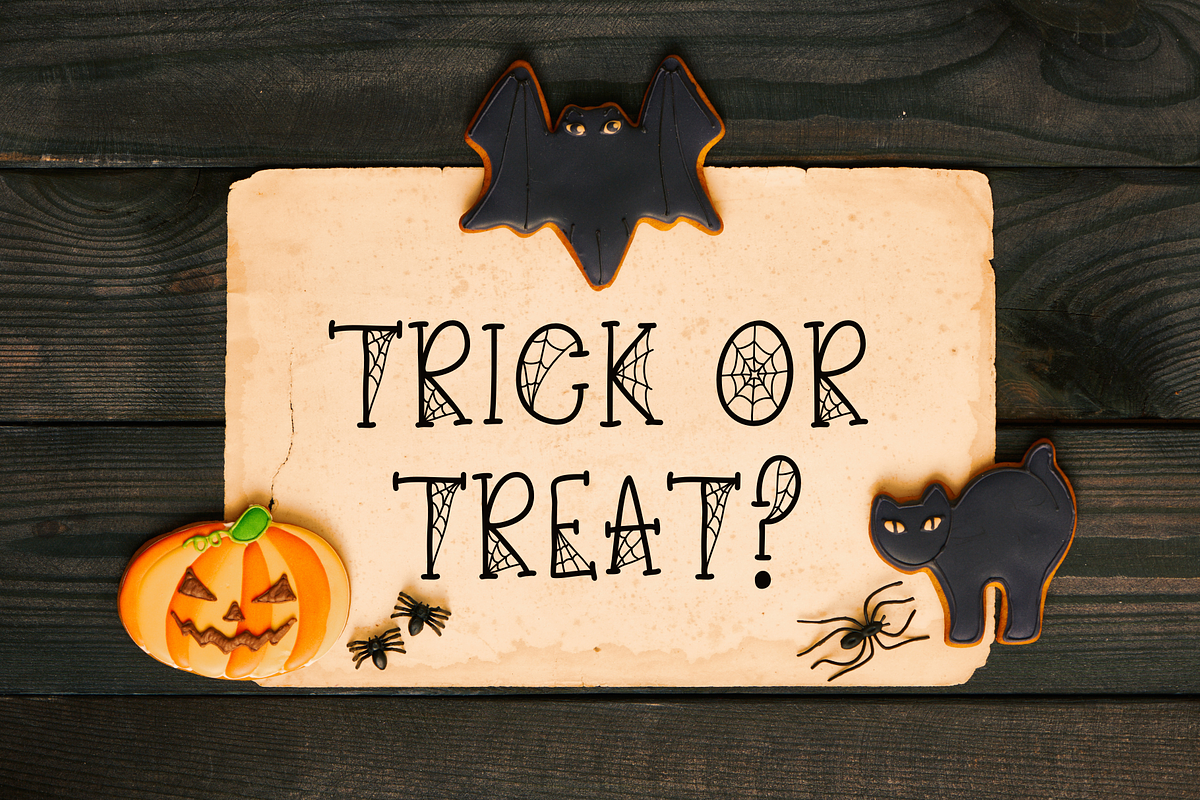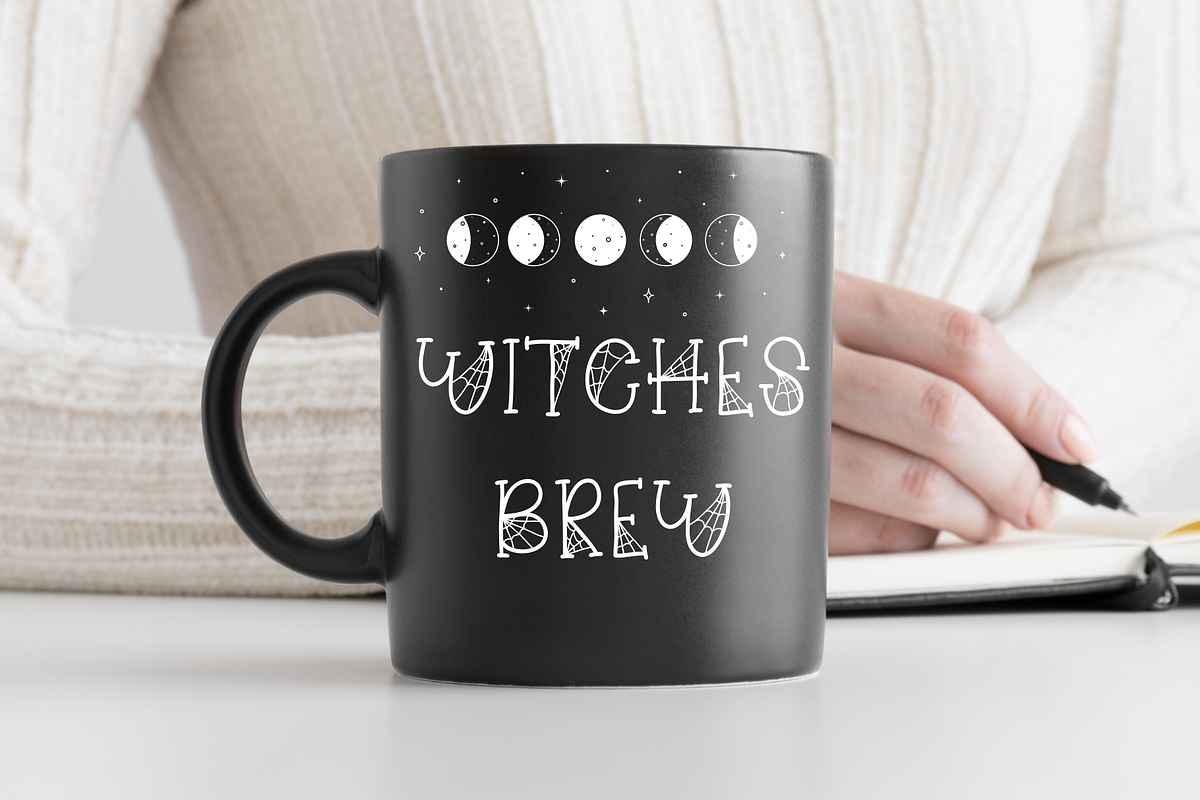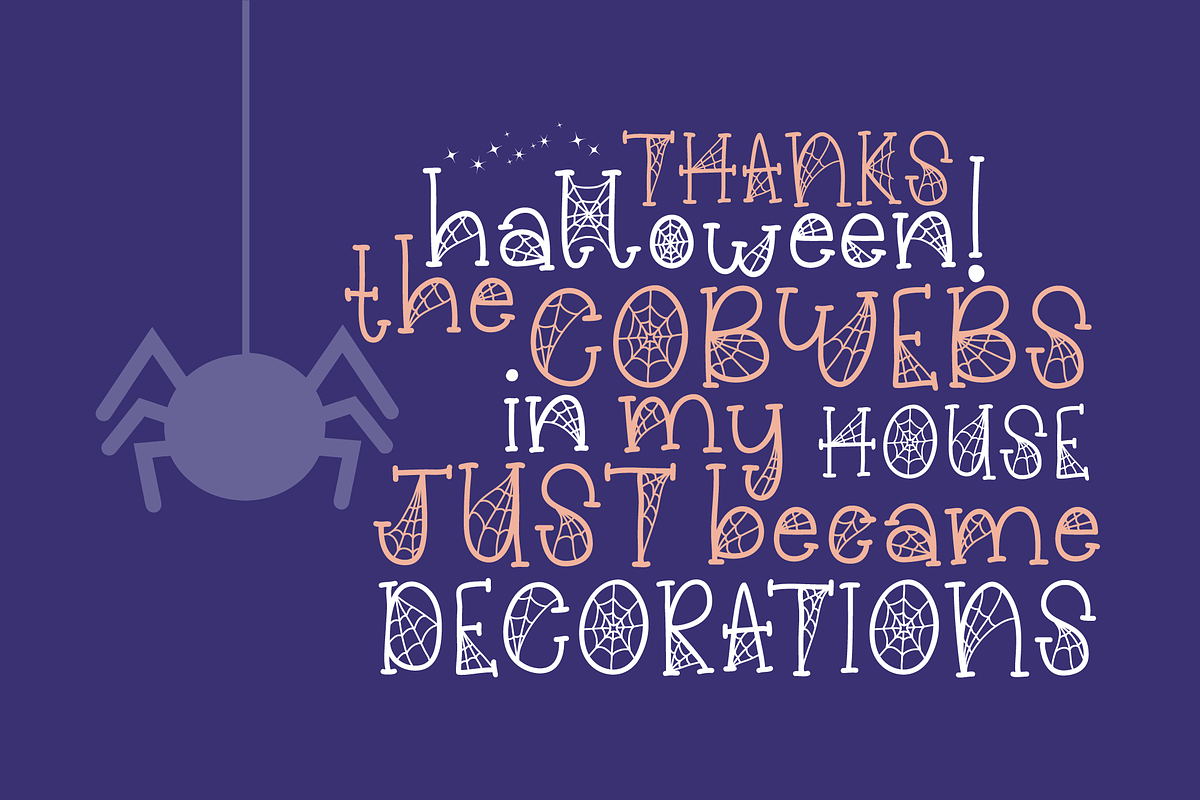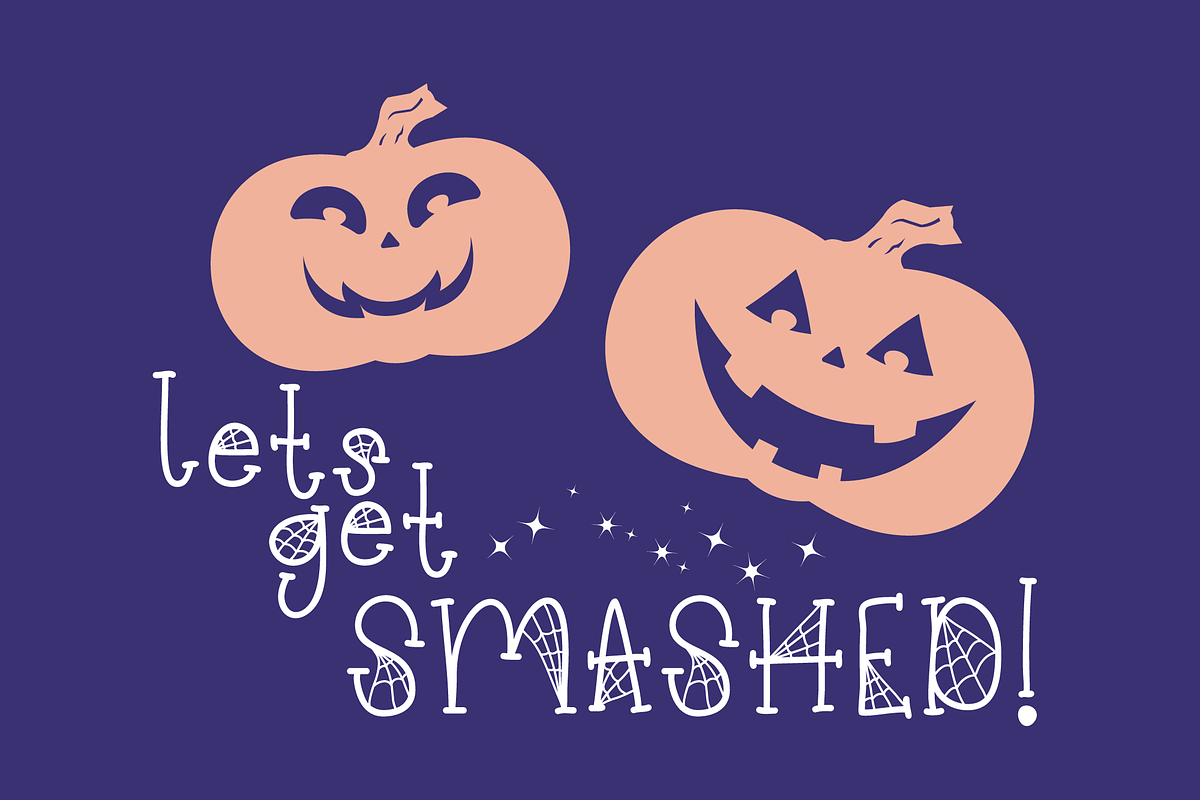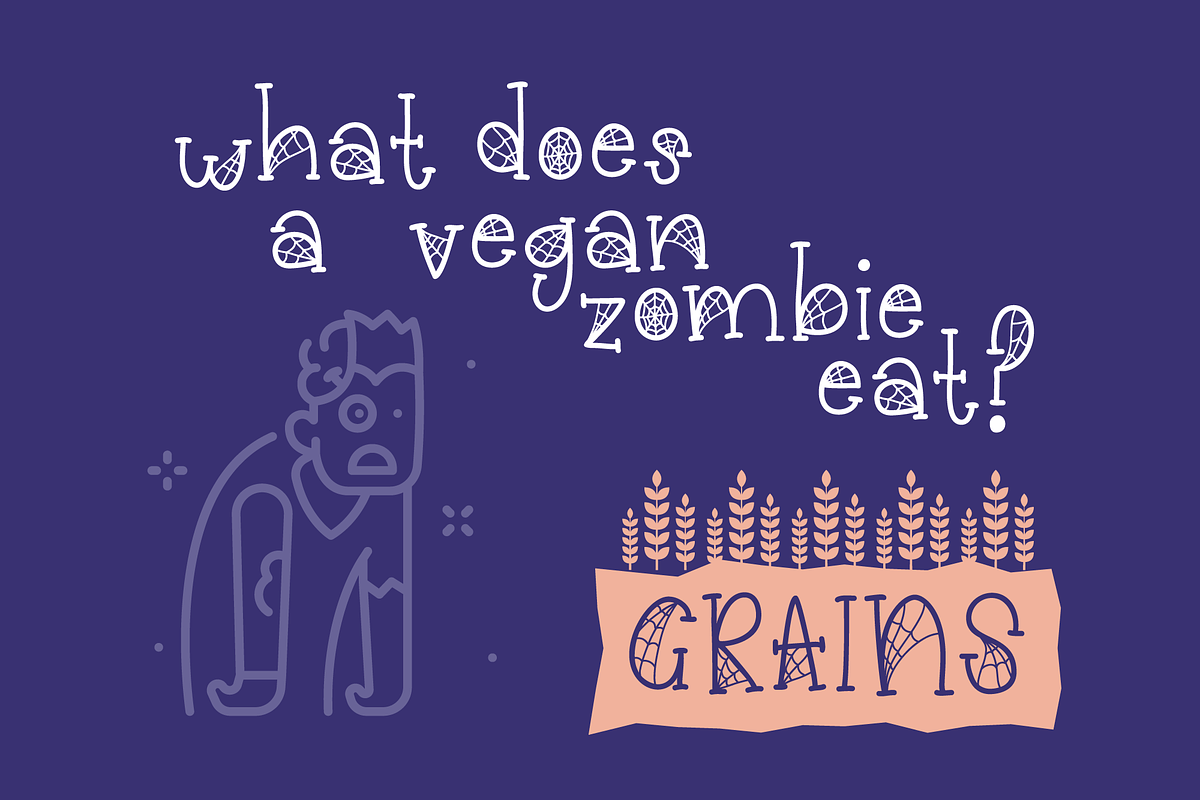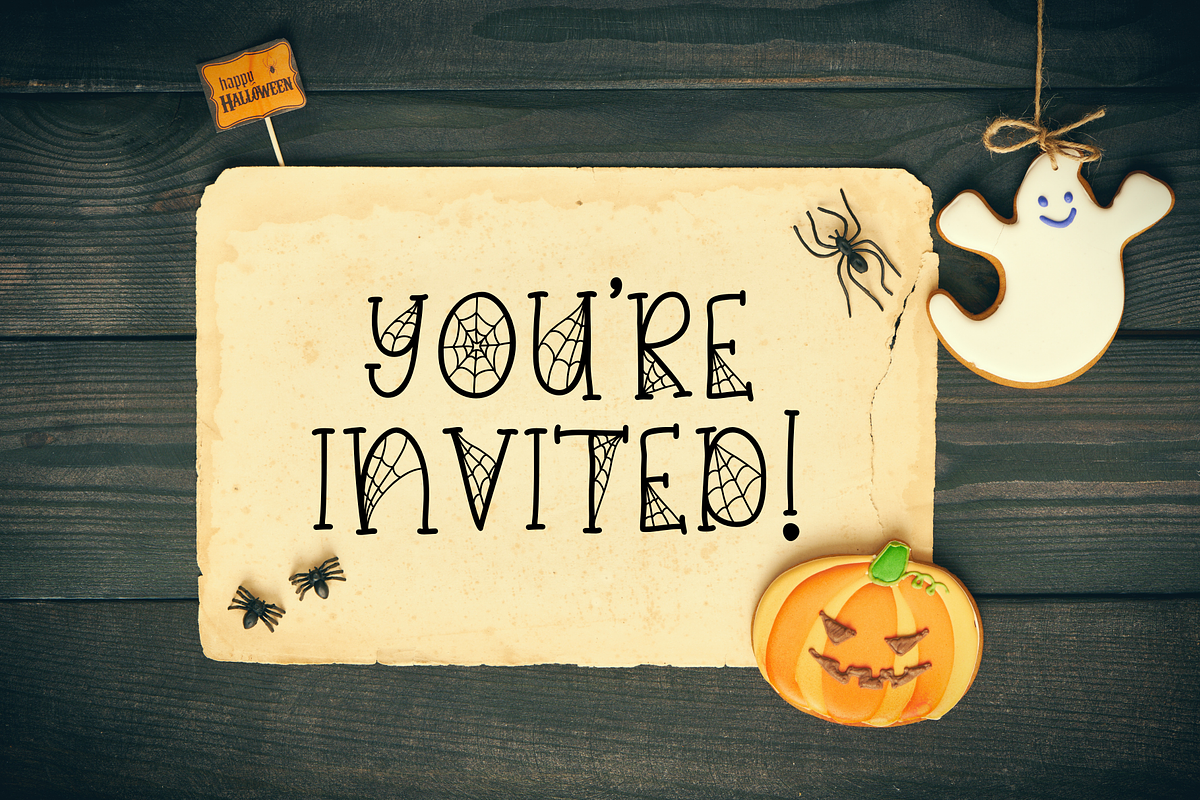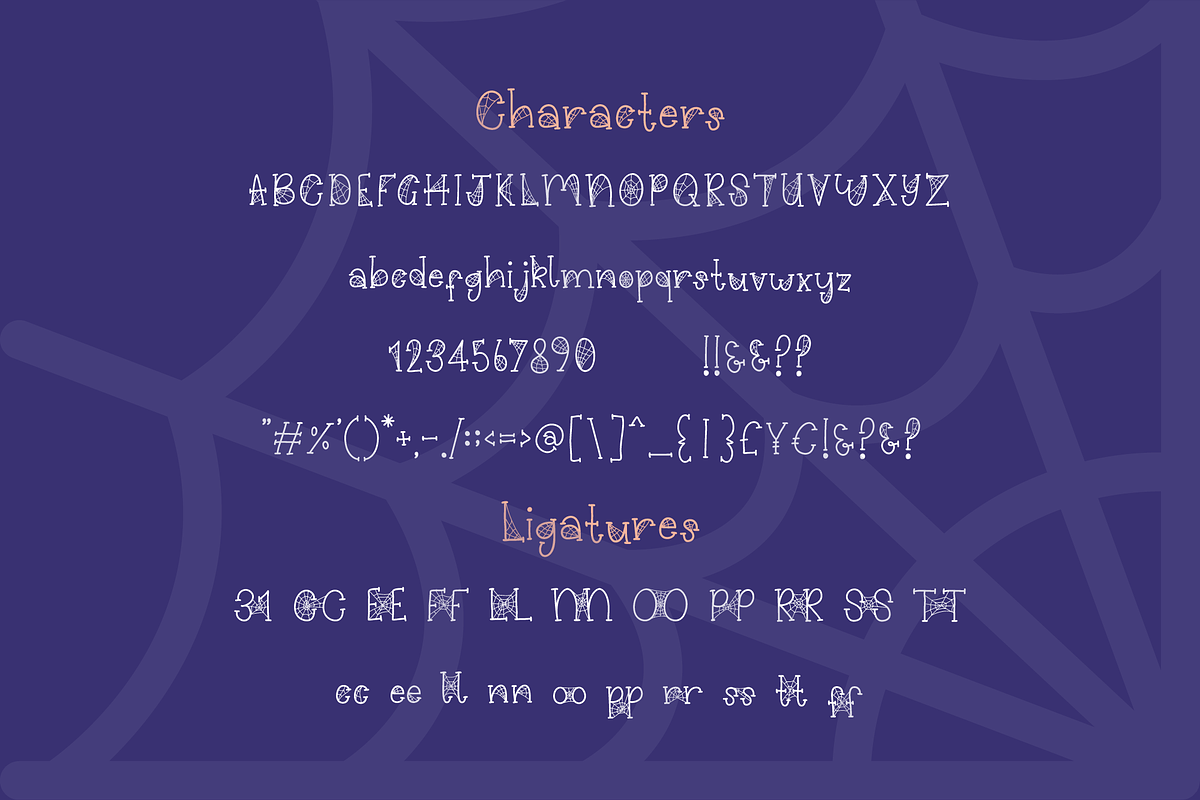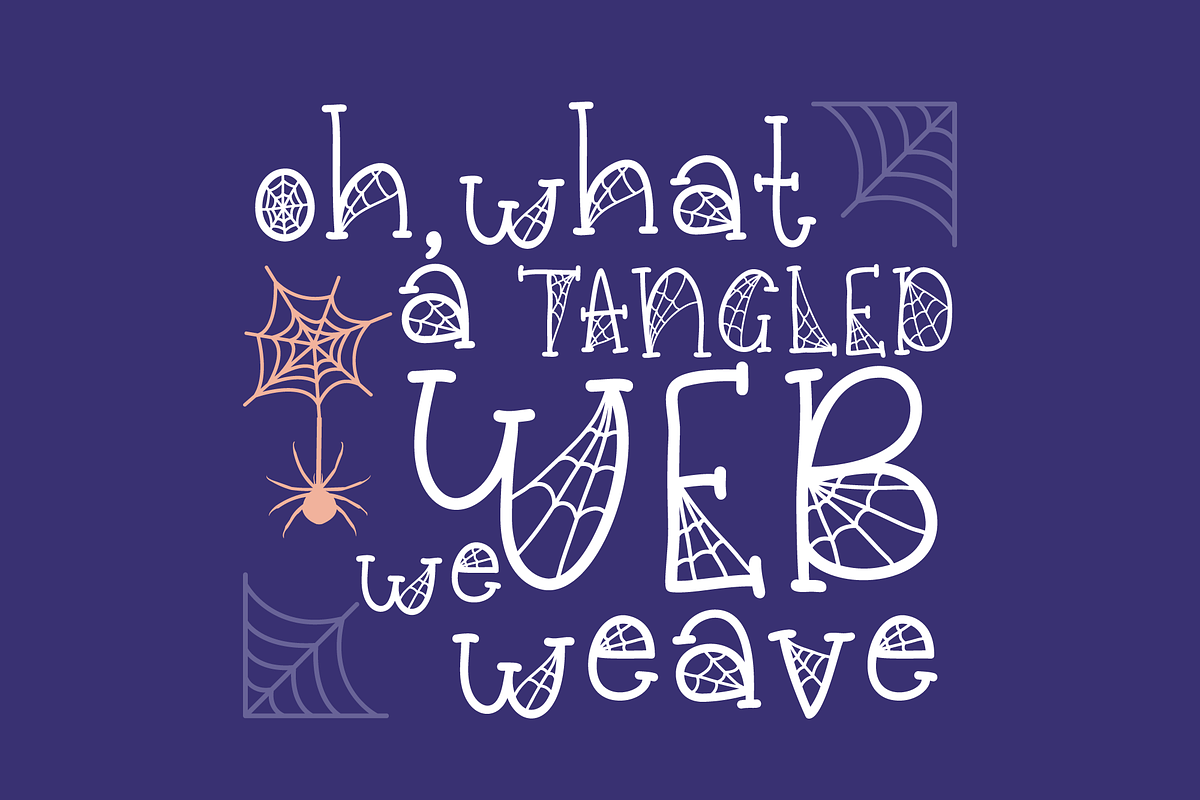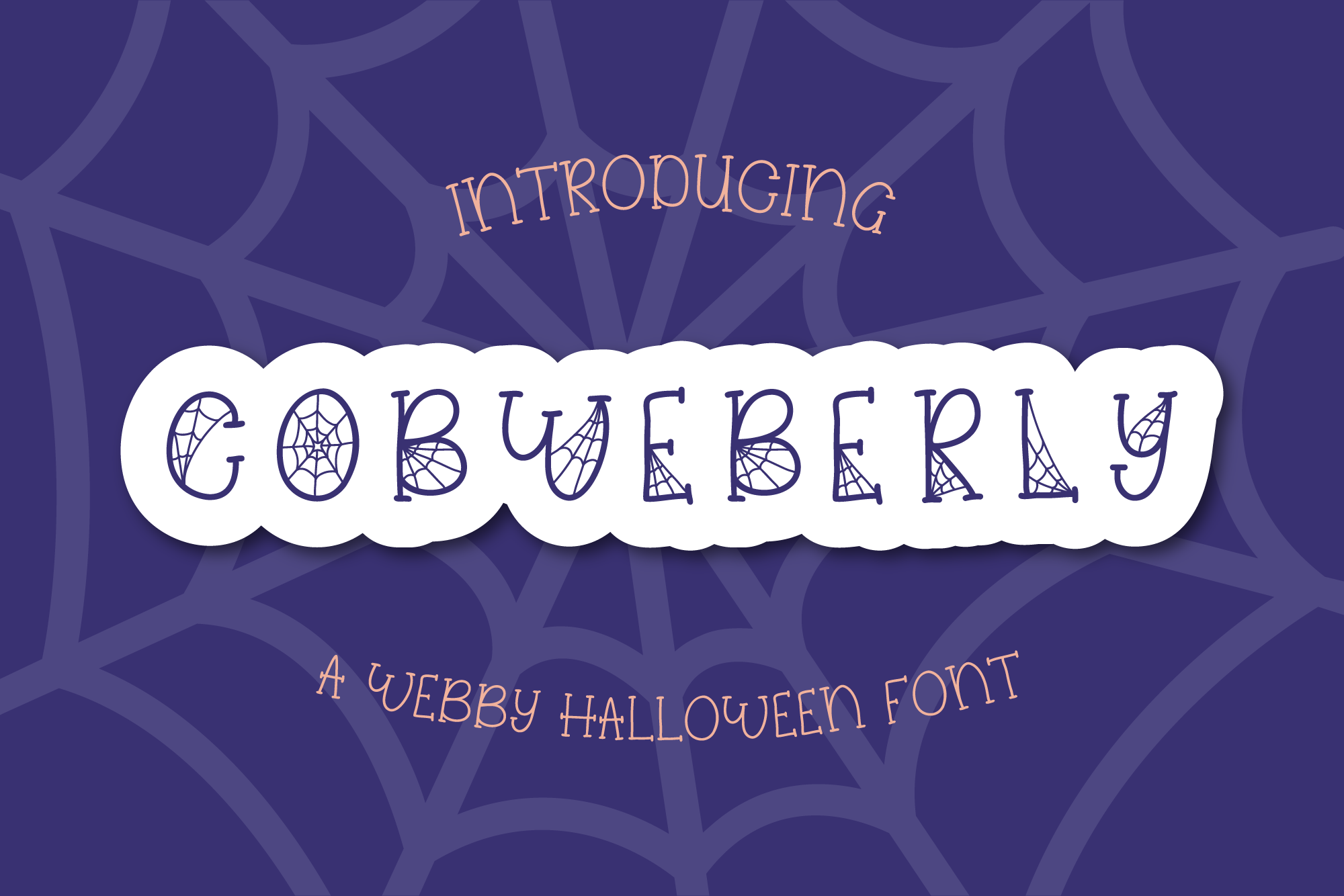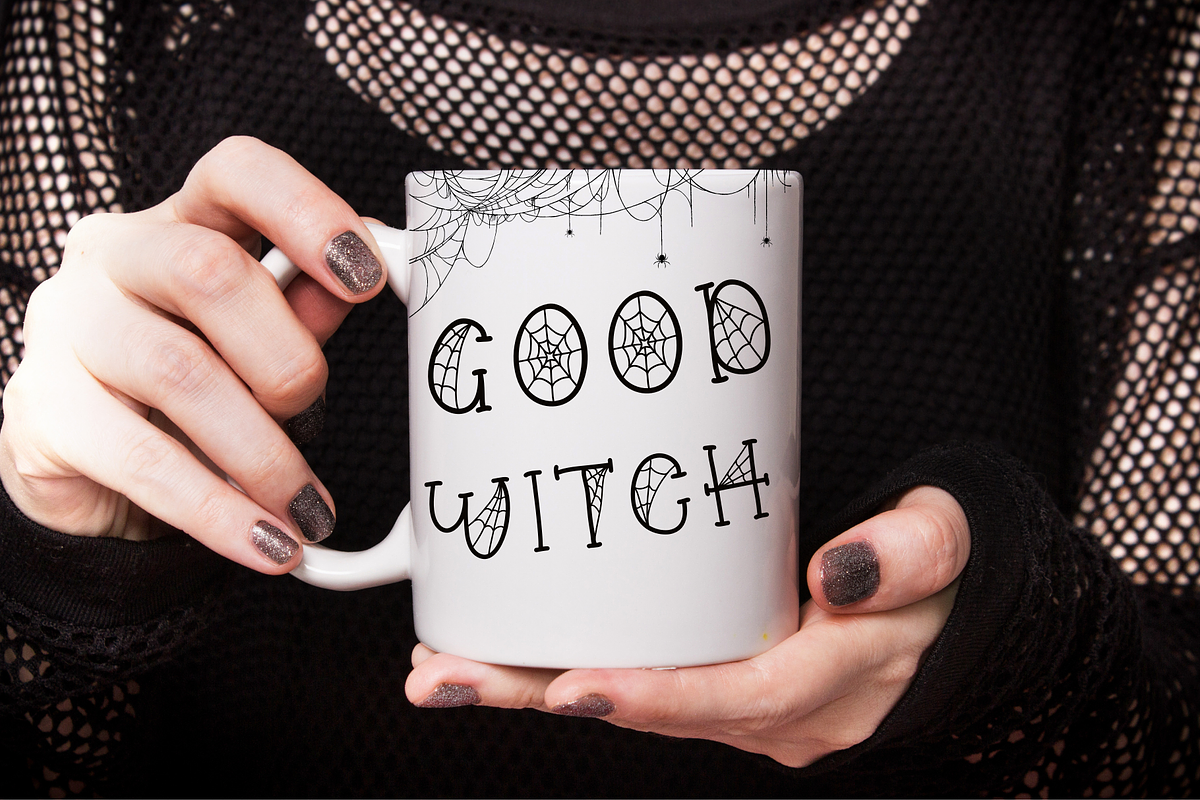
Cobweberly Halloween Spider Web Font
A Halloween Spiders Web Font.
Cobweberly is the perfect font for all your Halloween needs! This Cobweb Font features a creepy spiders web design that is perfect for party invitations, flyers, banners, and halloween displays. Cobweberly includes upper and lowercase letters as well as numbers, punctuation, & common ligatures.
So if you're looking for a spooky spiderweb Font for your halloween designs, look no further than Cobweberly! ___